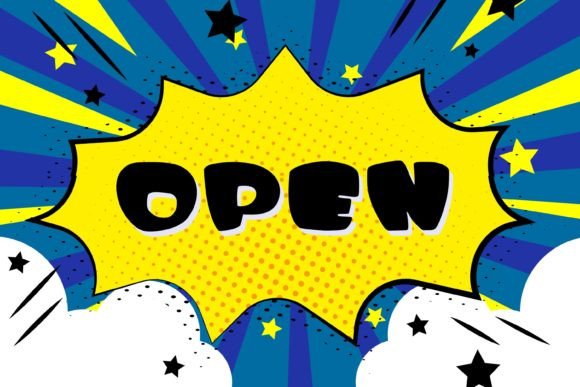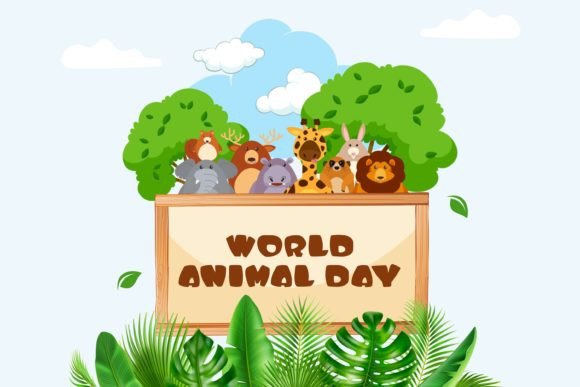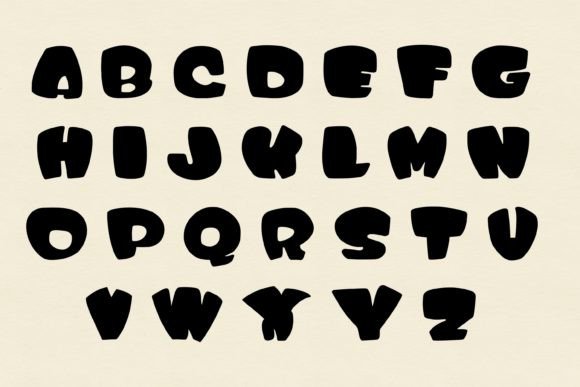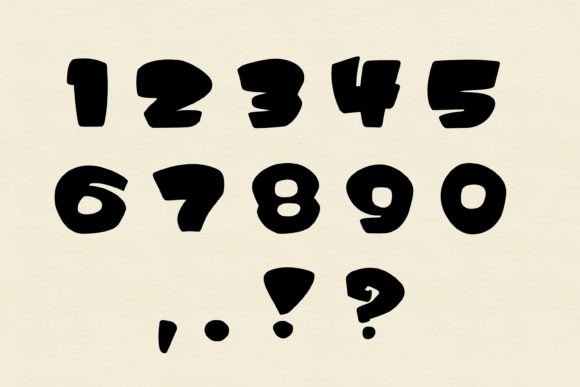
Introduction to Little Mammoth Font
Little Mammoth is a playful and childish display font.
Whether you use it for cartoon-related designs or childrenโs games, this font will make your projects look outstanding .